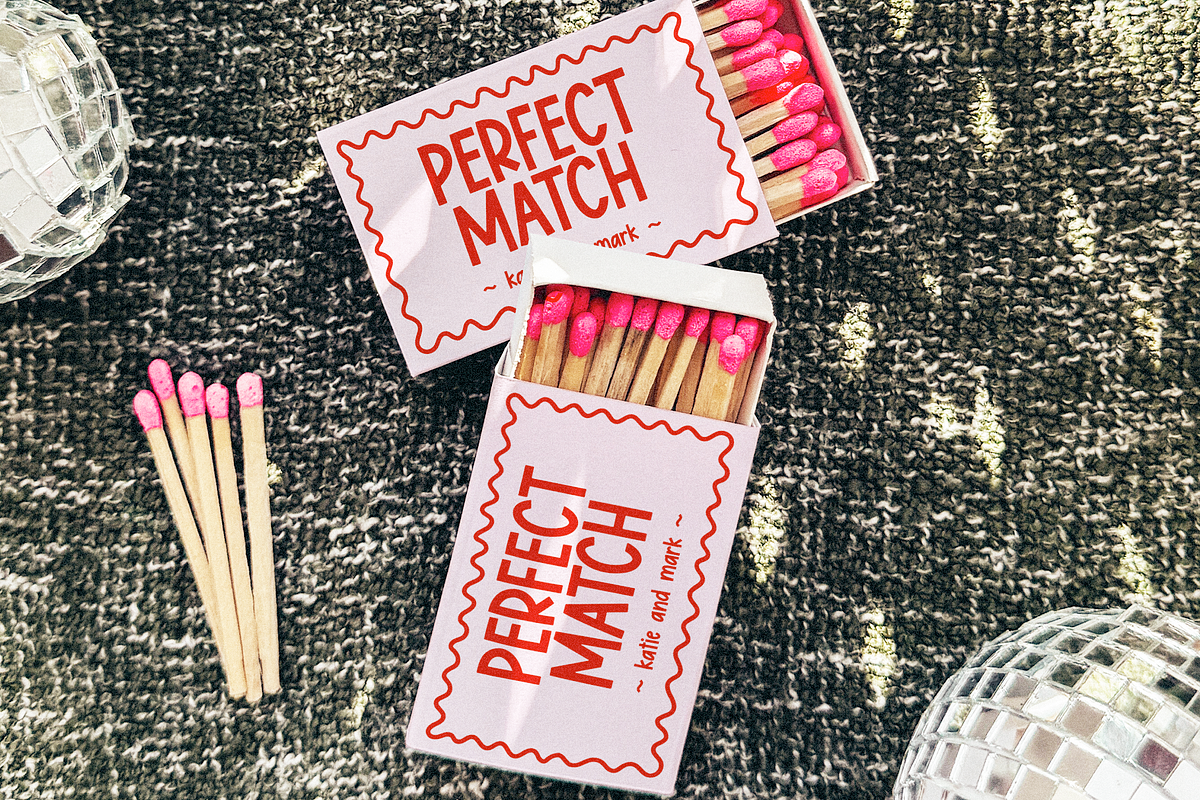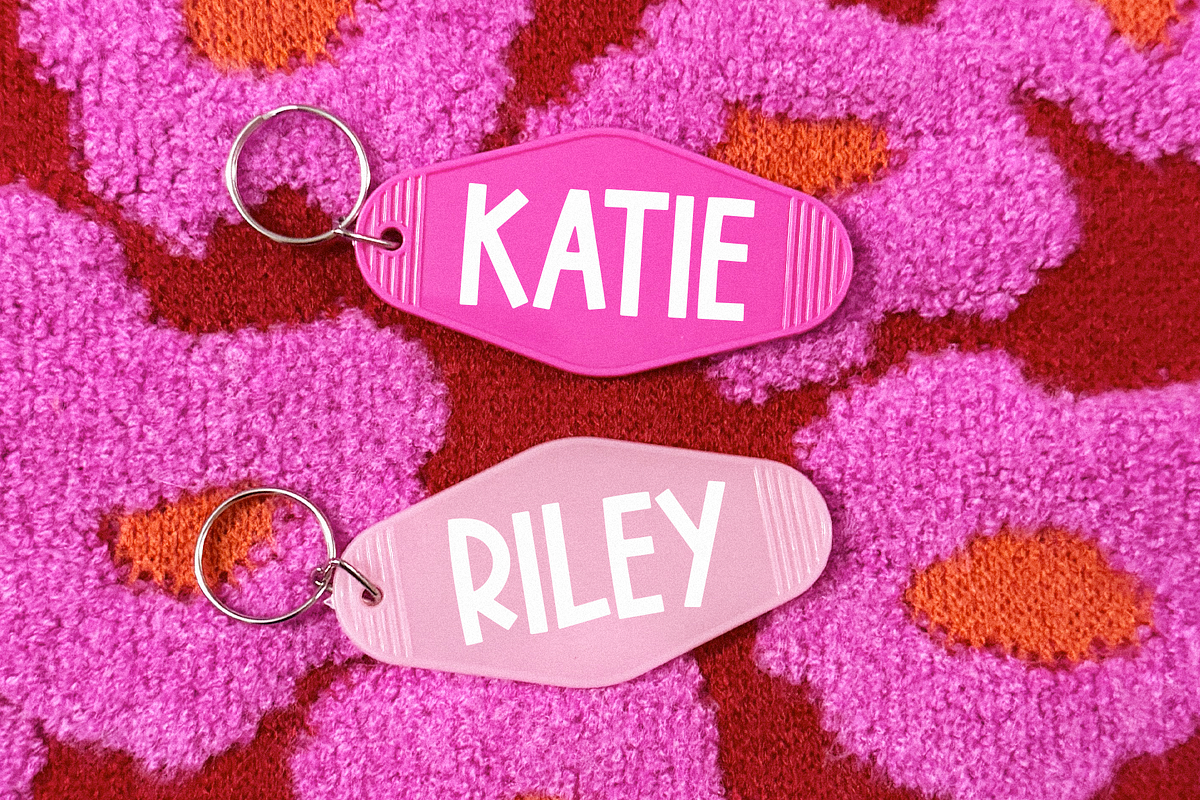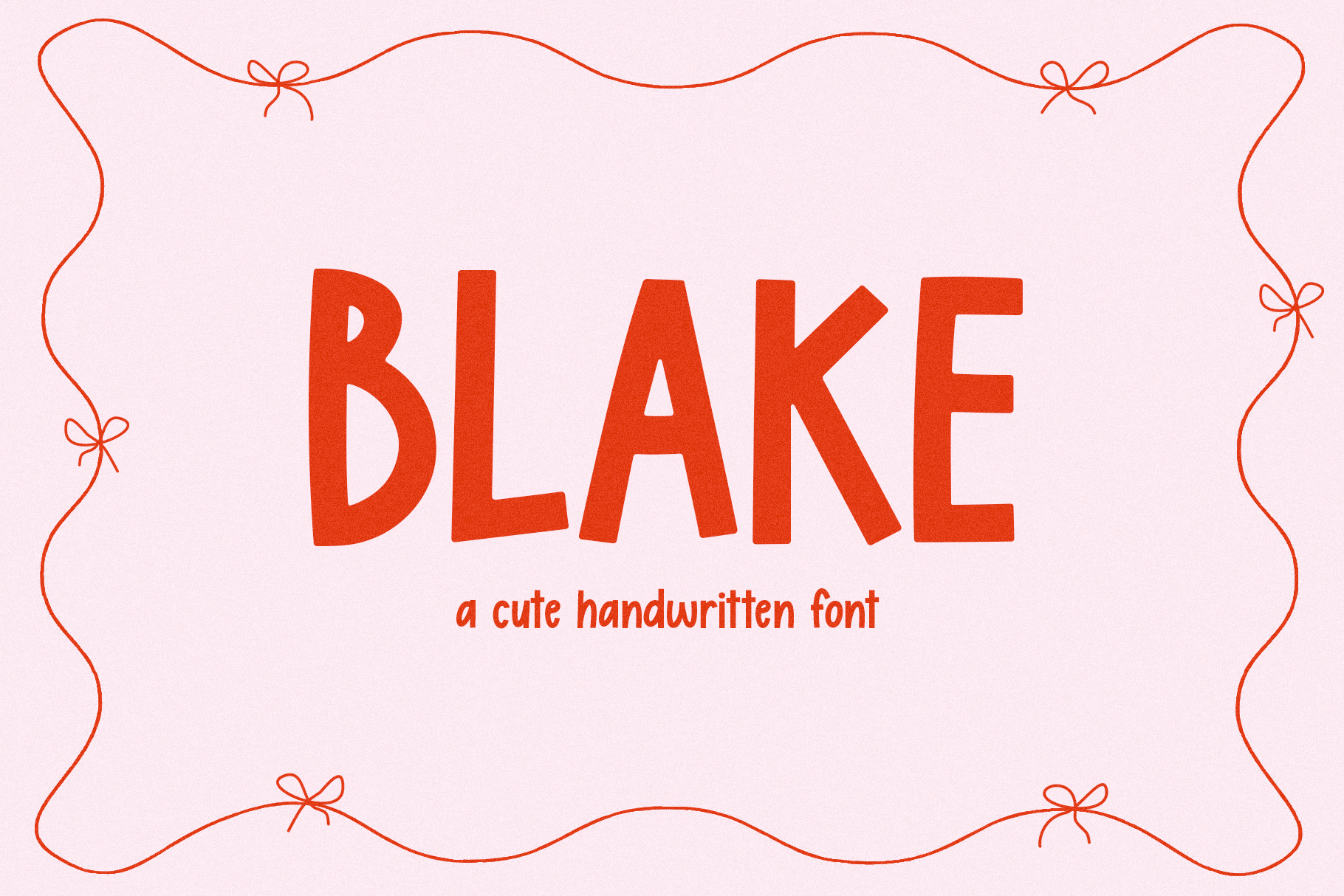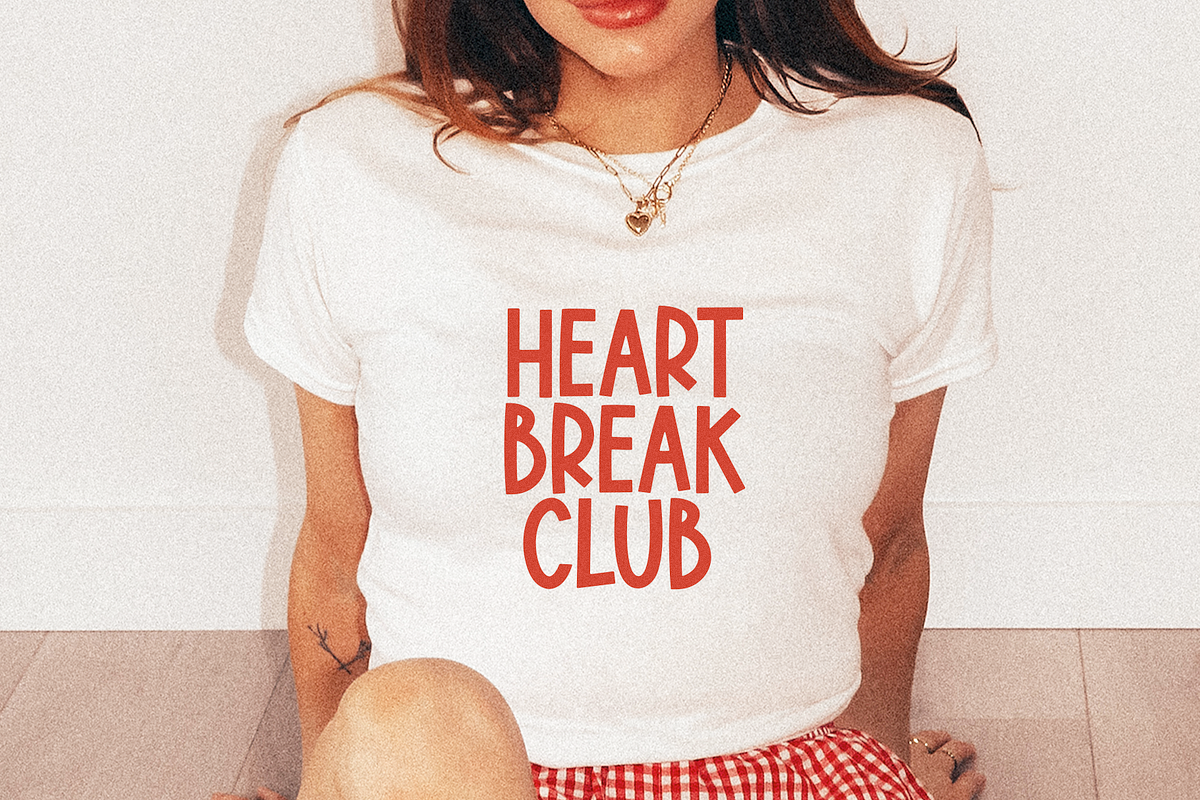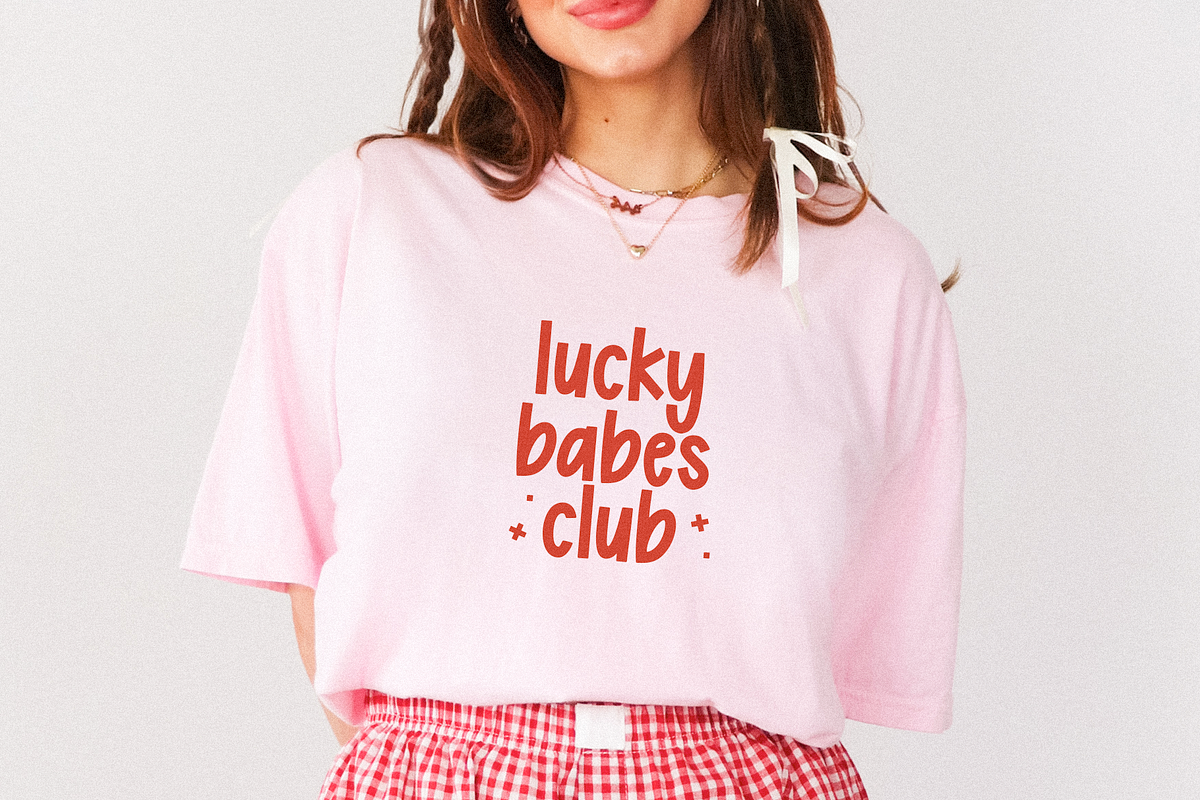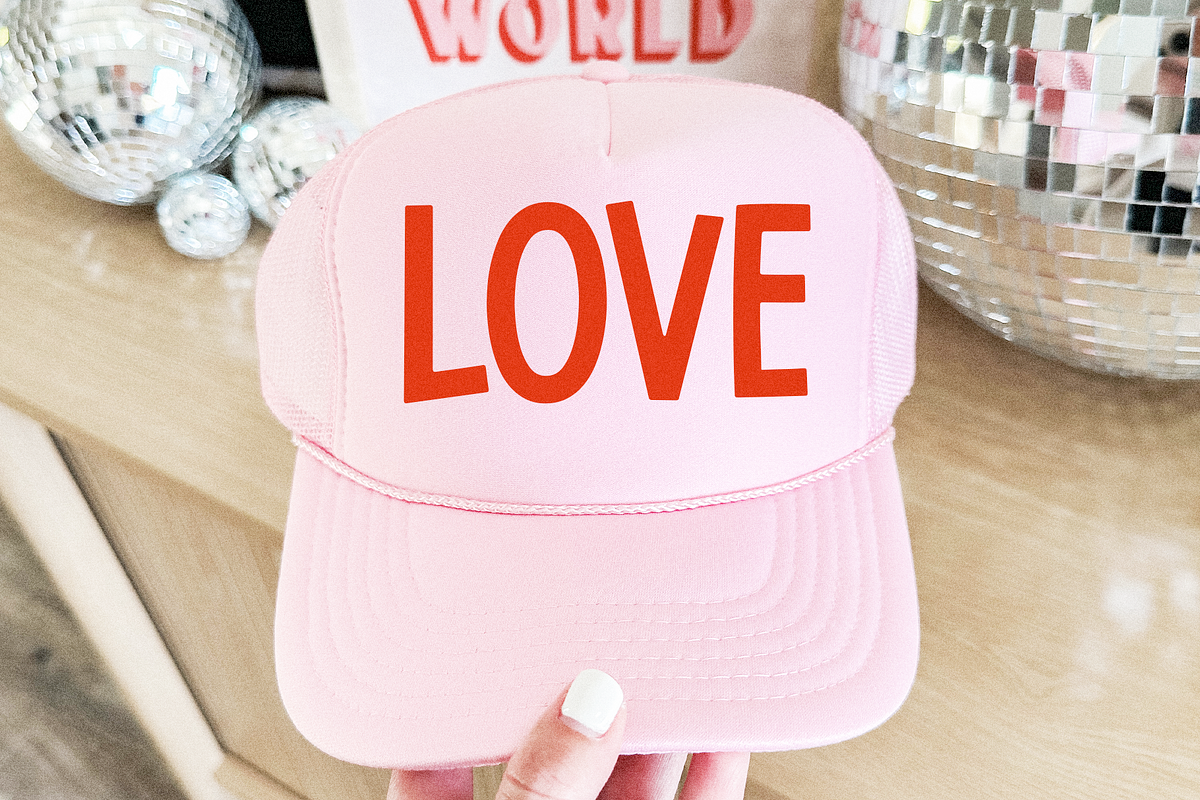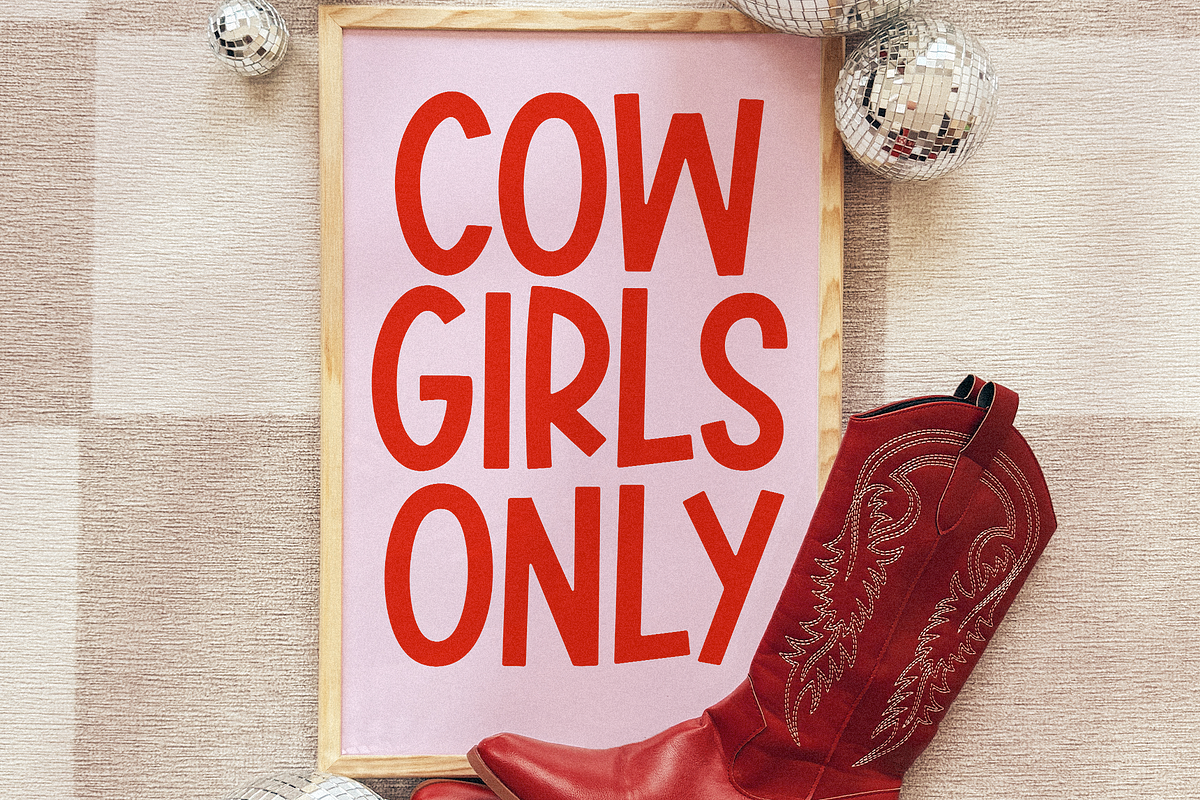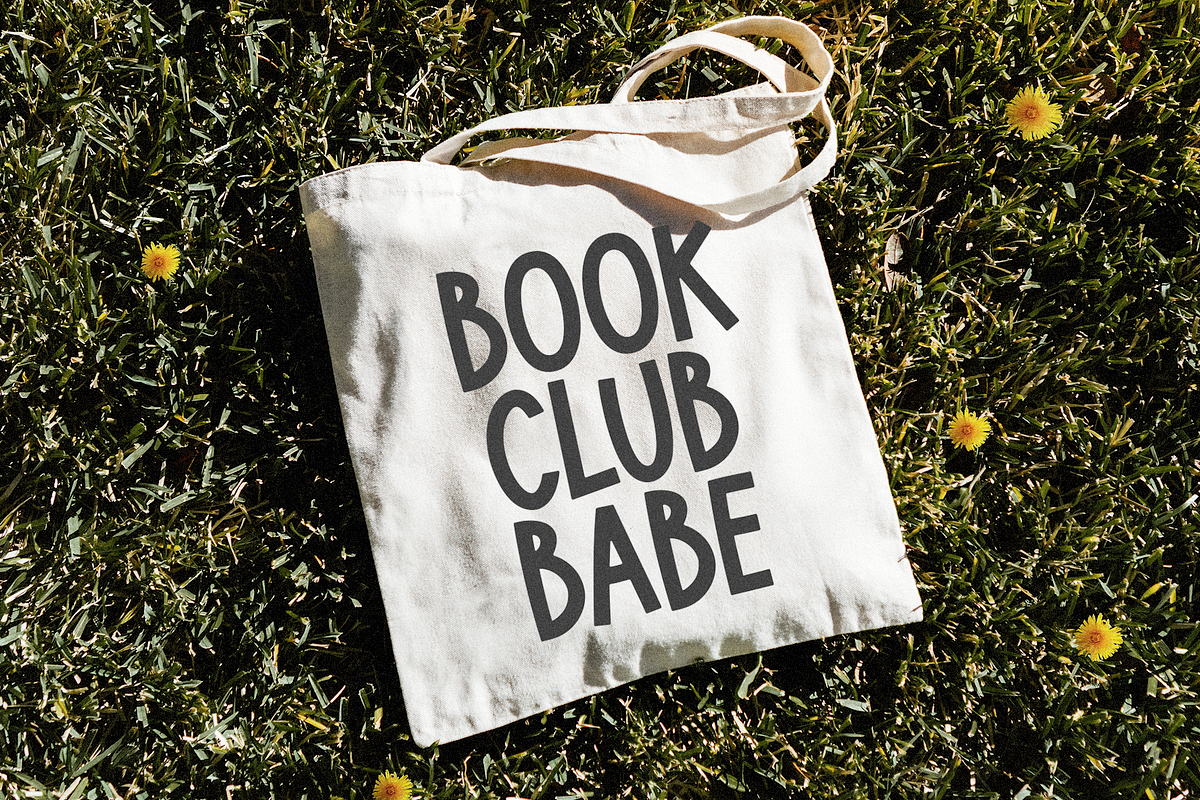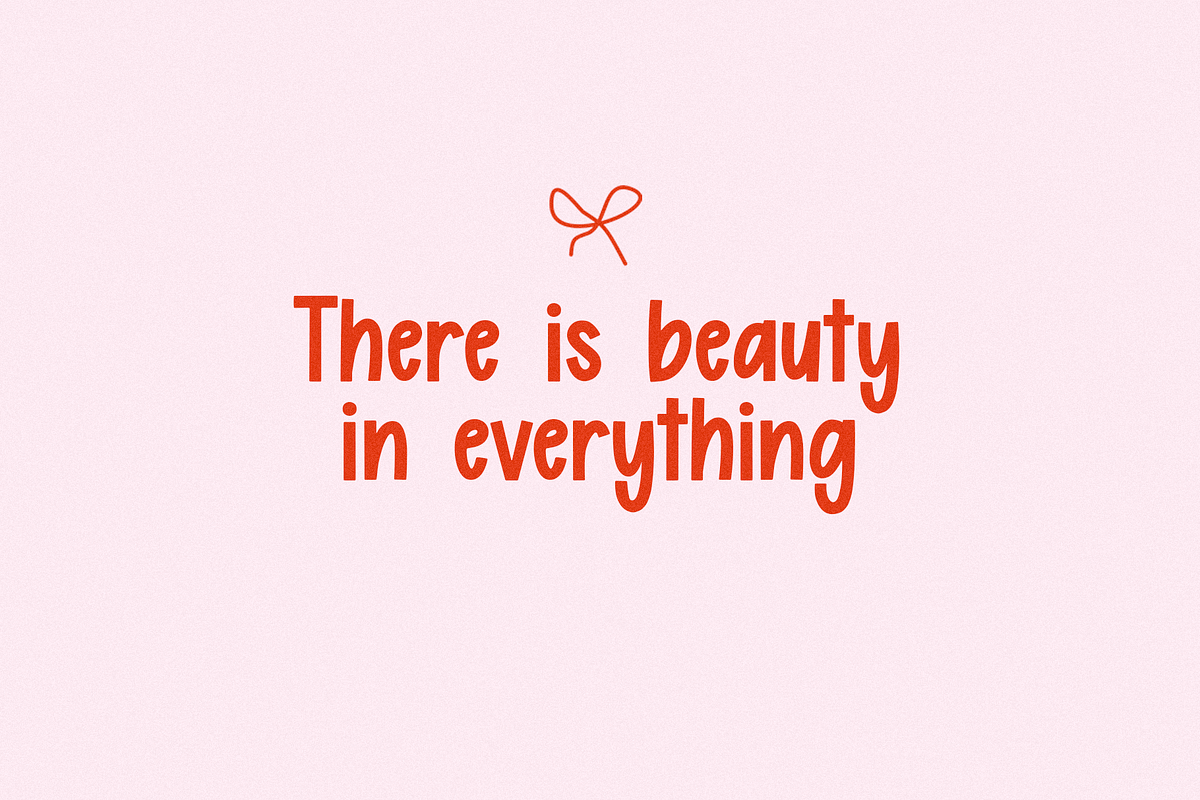
Blake | Cute Font
Blake is a cute handwritten font.
This font is perfect for logos, crafts, shirts, quotes, branding, posters, teachers, planners and more!